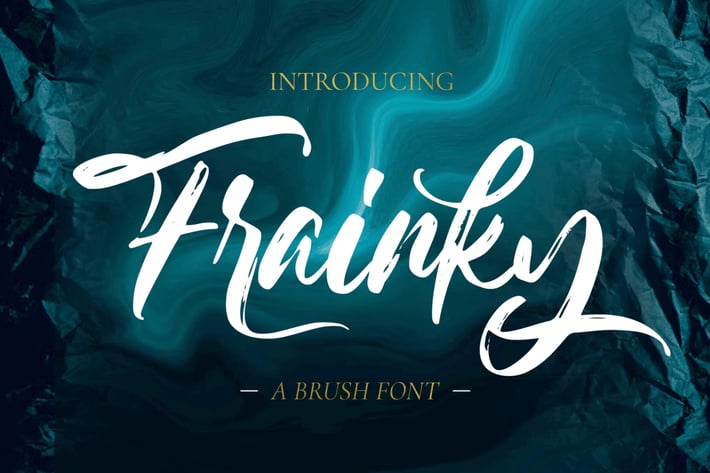
Brush Font
Looking for a perfect brush stroke that ties your design together?
Introducing Frainky - A Brush Font.
Trendy and artsy, Frainky makes your brand memorable.
It’s an excellent choice for ads, banners, printed cards, packaging, web pages, apps, and anything else your project needs. Give it a shot and see for yourself!
Multilingual & Ligature Support
Full sets of Punctuation and Numerals